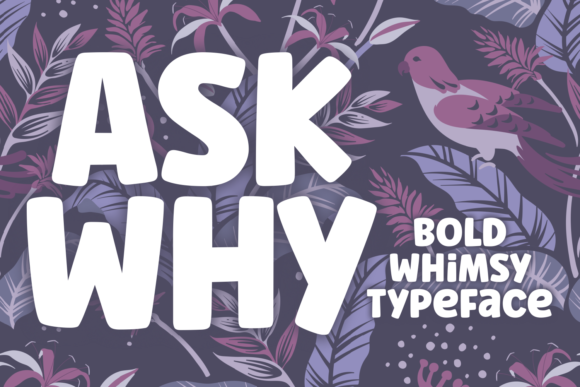
Adding a Dash of Whimsy to Your Designs
You know that moment when you’re staring at a blank page, trying to come up with the perfect design? The ideas just aren’t flowing, and you’re starting to feel stuck. That’s when I reach for a font that’s sure to shake things up – the Ask Why Font. This bold, chunky display font is the perfect addition to any design, injecting a playful touch that brings even the most mundane ideas to life.
As a designer, you know that the right font can make all the difference in a project. And with the Ask Why Font, you’ll find endless possibilities for creative expression. Whether you’re working on a card, a scrapbook page, or any other project, this font is sure to add a unique touch that sets your designs apart.
Key Features of “Ask Why Font”
- Font Family: Ask Why is a sans-serif font, designed to promote critical thinking and curiosity.
- Unique Characteristics: The font features a distinctive, bold, and modern design, making it ideal for headings, titles, and calls-to-action.
Ask Why Font Review
I’ve had the chance to work with the Ask Why Font, and I must say, it’s an interesting addition to any design project. Here are some of the things that caught my attention:
- ✨ Unique character: The Ask Why Font has a distinct, handwritten feel that can add a personal touch to your designs.
- ✨ Versatile: It can be used for a wide range of projects, from logos to branding materials and even digital products.
- ✨ Customizable: The font is highly customizable, making it easy to adjust to your specific design needs.
- ⚠️ Limited legibility: At small font sizes, the Ask Why Font can become difficult to read, especially for complex text.
Overall, the Ask Why Font is a great choice for designers who want to add a touch of personality to their projects. While it has some limitations, it’s still a solid option for a wide range of design applications. With some careful planning and consideration, you can create stunning designs that showcase the unique qualities of the Ask Why Font.
Getting the Most Out of the Ask Why Font
Use the Ask Why Font to create eye-catching headings and titles.
Pair the font with bold colors and contrasting backgrounds for maximum impact.
Experiment with different font sizes and styles to add visual interest to your design.
Use the Ask Why Font for:
Headings and titles in presentations and documents.
Product labels and packaging design.
Marketing materials and social media graphics.